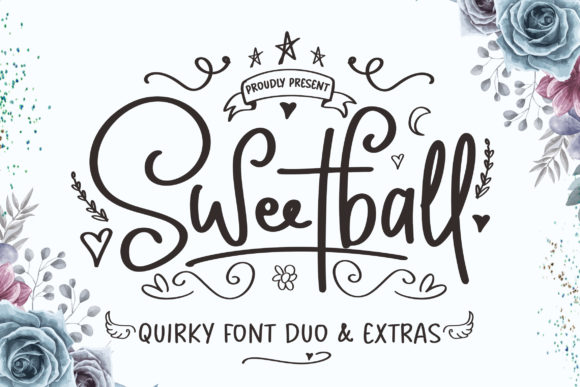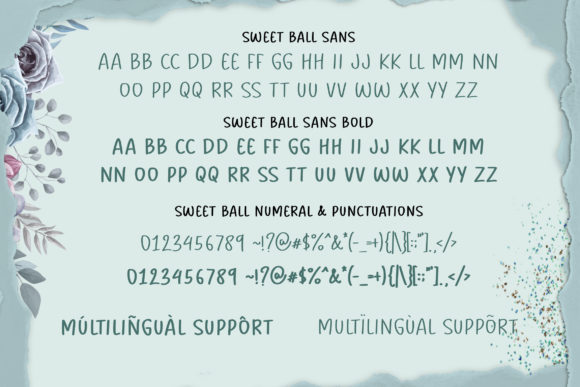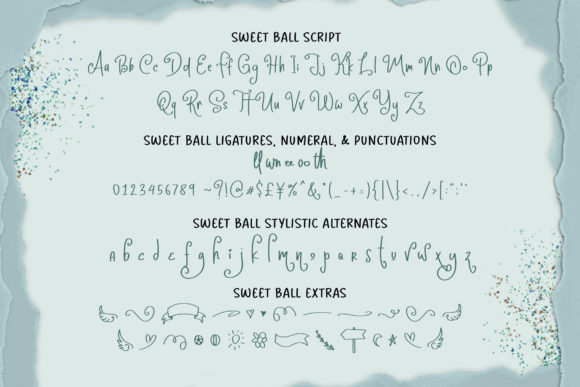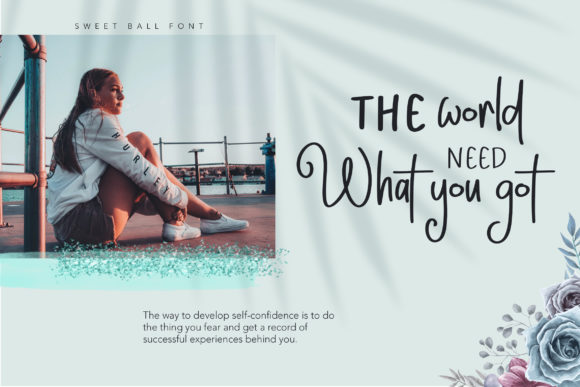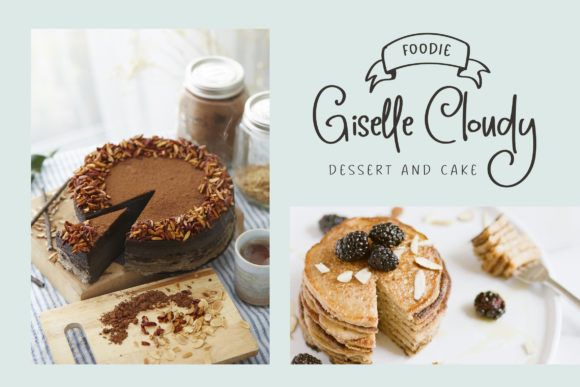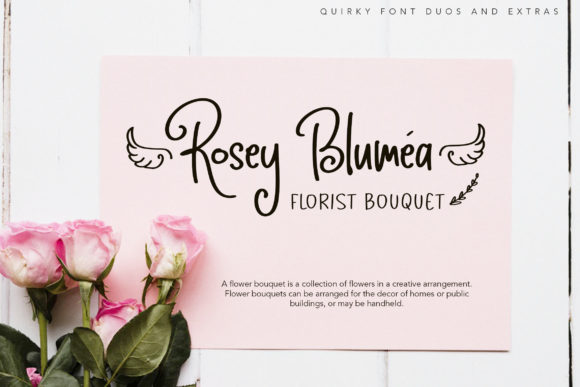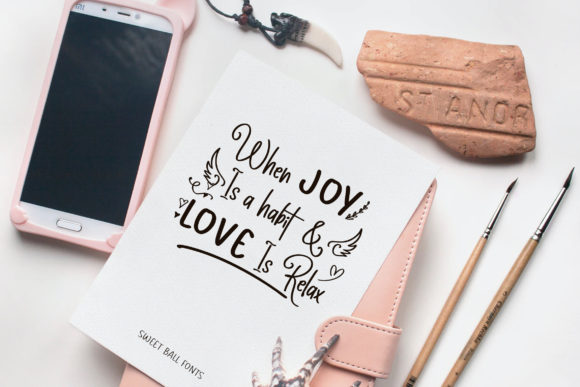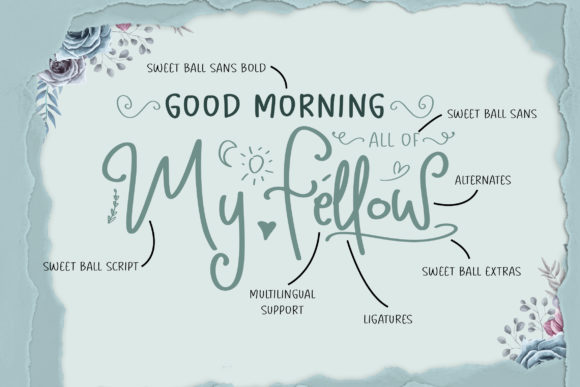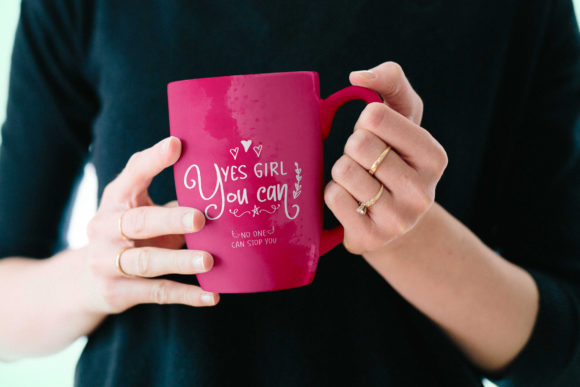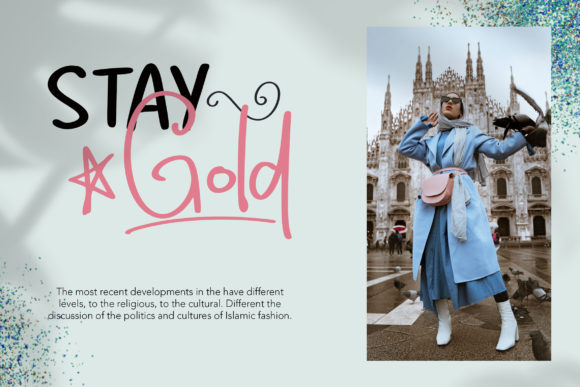
Sweetball Font
About Sweetball Font
Introducing “Sweetball” – a ravishing script font that exudes a contemporary atmosphere while maintaining impeccable form. Inspired by timeless classic calligraphy, Sweetball was meticulously crafted to elevate the beauty of your projects to new heights.
The captivating design of Sweetball combines elegance and modernity seamlessly. Its stylish curves and fluid strokes create a visually striking composition that catches the eye and leaves a lasting impression. This font is crafted with precision and attention to detail, ensuring that each character showcases its impeccable form.
Sweetball is the perfect choice for enhancing the beauty of your projects. Whether it’s wedding invitations, branding materials, packaging, posters, or any other creative endeavor, this font adds a touch of sophistication and allure.
The contemporary atmosphere of Sweetball brings a fresh and modern vibe to any design. Its versatility allows it to shine in various contexts, from formal to casual, making it suitable for a wide range of projects.
With its timeless classic calligraphy inspiration, Sweetball evokes a sense of tradition and elegance. It captures the essence of handwritten artistry, infusing your projects with a touch of refinement and grace.
The beauty of Sweetball lies in its ability to enhance the aesthetics of your projects effortlessly. Its smooth and harmonious letterforms create a pleasing visual rhythm, adding a sense of balance and harmony to your designs.
Whether you’re creating wedding invitations that exude romance and sophistication, branding materials that demand attention and convey a sense of professionalism, or posters that captivate the viewer with their artistic flair, Sweetball is the perfect choice to elevate your creative vision.
In conclusion, Sweetball is a ravishing script font that combines contemporary flair with impeccable form. Inspired by timeless classic calligraphy, it enriches the beauty of your projects, ensuring they stand out with style and elegance. Embrace the allure of Sweetball and let it bring a touch of sophistication to your wedding invitations, branding materials, packaging, posters, and any other design endeavor you embark upon.